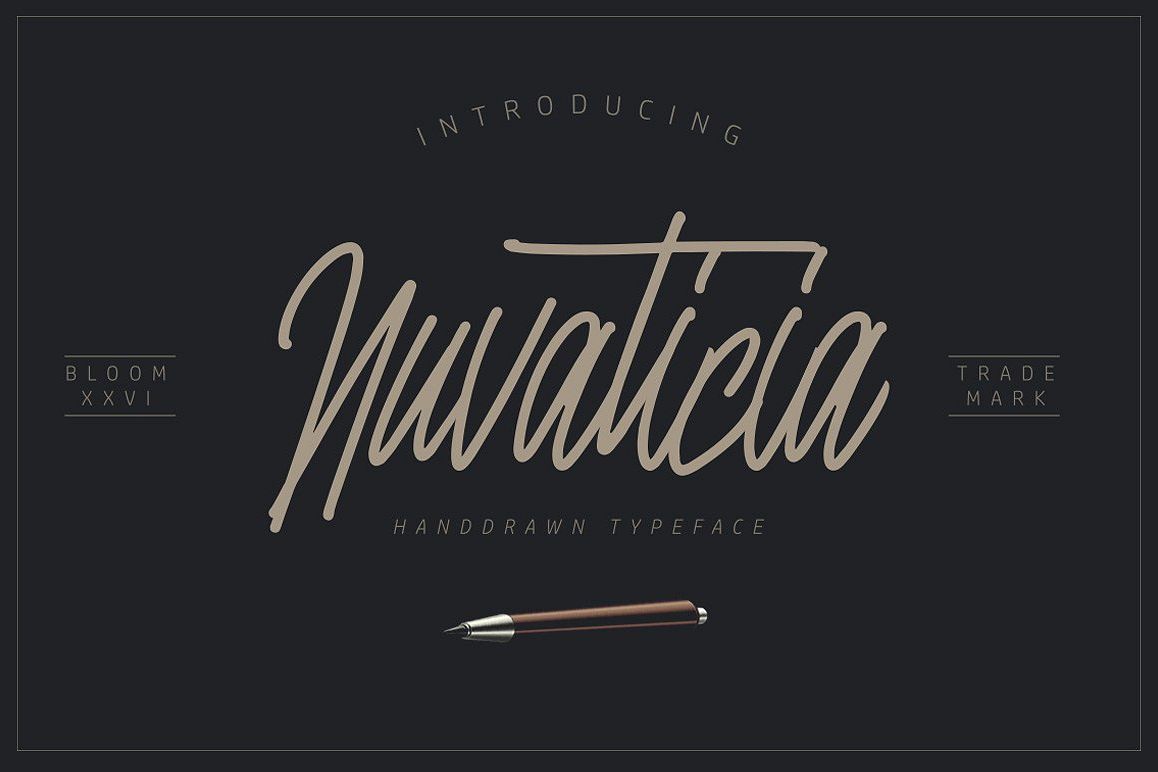
Nuvanticia Typeface + free bonus 43 Vector Skull
Nuvaticia-Regular
This monoline script would be wonderful for your all your work. The dancing baseline in the font gives you the feeling of incredible freedom.Nuvaticia Script is modern script that perfect for photography, signature, branding. It is so beautiful and classy, simple but strong. This font is works well for any elegant project including logo designs, a website headline, business cards, mug designs, tote bags, clothes, invitation cards, etc.What's include: